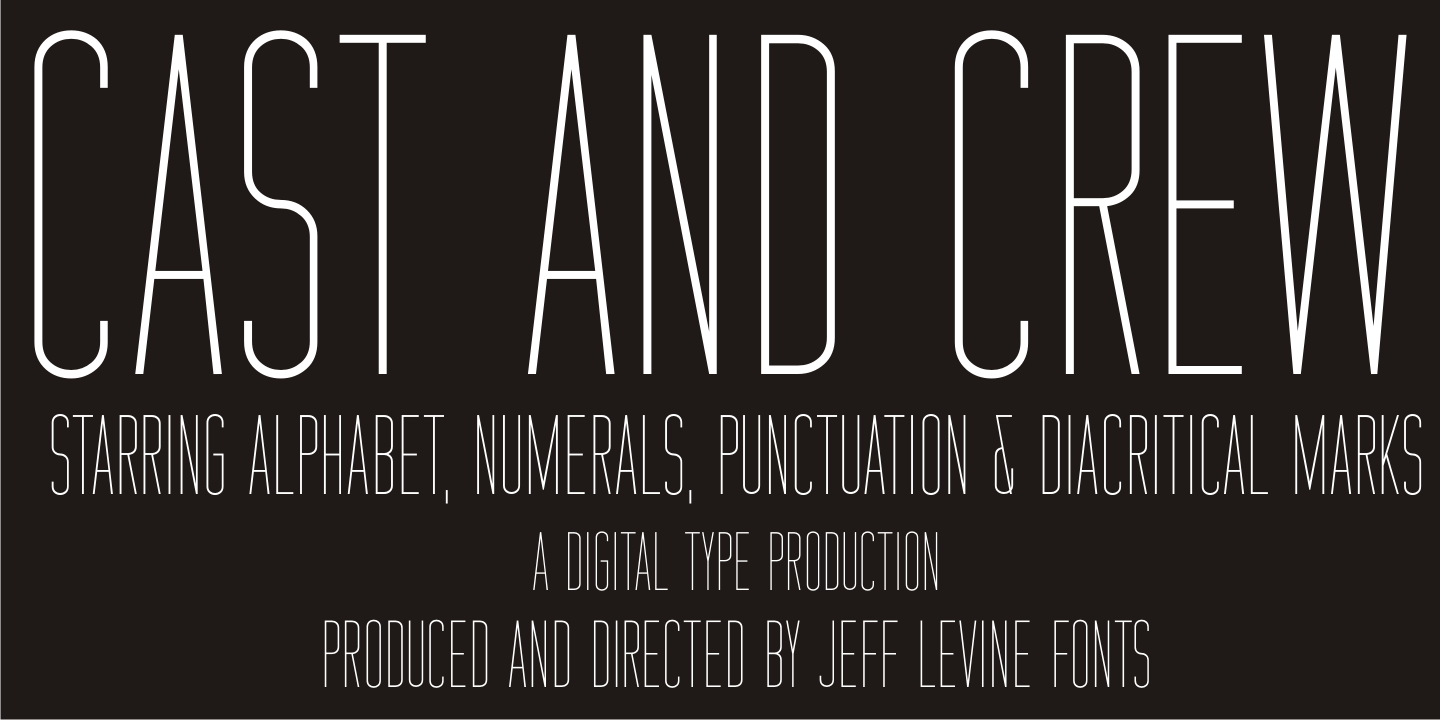
The Cast And Crew JNL Font Free Download is a classic and highly legible typeface, making it an excellent choice for designs that aim to evoke the golden age of cinema, behind-the-scenes professionalism, and a vintage, authentic feel. This versatile font is perfectly suited for movie credits, film festival promotions, theater playbills, documentary titles, vintage-inspired posters for entertainment events, and any project requiring a clear, historical Hollywood aesthetic. Imagine it meticulously scrolling during the end credits of a classic film, providing the definitive typography for an old movie marathon, or lending an authentic, timeless feel to a retro film studio's branding. Its clean, condensed forms and straightforward readability ensure your message is delivered with precision and an undeniable sense of cinematic heritage.
What makes Cast And Crew JNL Font truly exciting is its ability to instantly transport viewers to the magic of the silver screen. It's not just a utilitarian font; it embodies a raw, unpretentious elegance and a distinct, functional character that makes it incredibly compelling. The tightly packed letterforms and robust construction give it an authentic, workhorse feel, as if designed for economy and clarity on a projection screen. Designers will appreciate how it immediately adds a professional, nostalgic quality to any project, making it ideal for designs that need to convey information clearly, succinctly, and with a timeless, authoritative tone reminiscent of old movie magic.
The Cast And Crew JNL Font family typically focuses on its singular, impactful style, as its strength lies in its inherent condensed and utilitarian aesthetic, mirroring its real-world application. While you might primarily find a Regular option, its power comes from its unique visual effect rather than a broad range of weights. Some versions might offer slightly varied weights or distressed alternatives to enhance its authentic, aged appearance. These focused design choices ensure that the Cast And Crew JNL Font Free Download provides ample creative opportunities to craft truly authentic, clear, and visually striking designs that resonate with a sense of cinematic history and straightforward purpose.